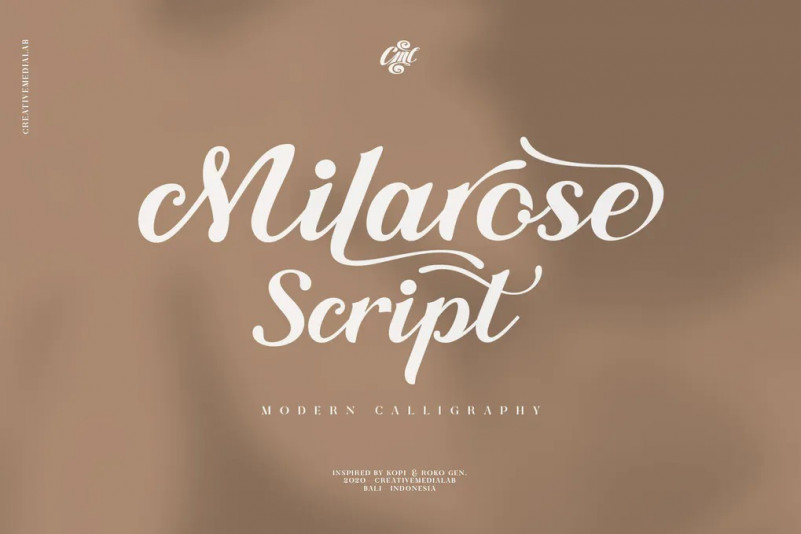
Milarosa Font
Milarose script is pretty, elegant and romantic script. It has beginning, ending and various alternates to arrange. Milarose script is suitable for romantic theme design, like wedding quotes, stationery, books, and more. it perfect to pair with any serif font, we recommend using Losta Masta serif family which used on preview above, you can find it on my portfolio.